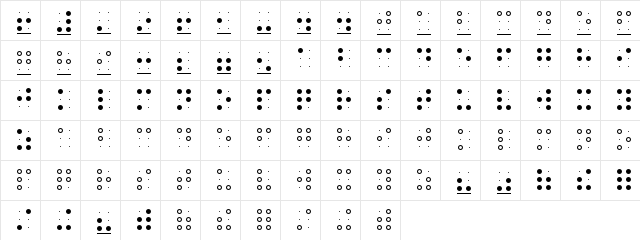
Braille Grid HC Regular
| Designer | Roberto Mocci |
Design Context for Braille Grid HC Typeface
Braille Grid HC takes a measured approach to typography — its balanced proportions and neutral character make it a reliable workhorse for both digital and print work.